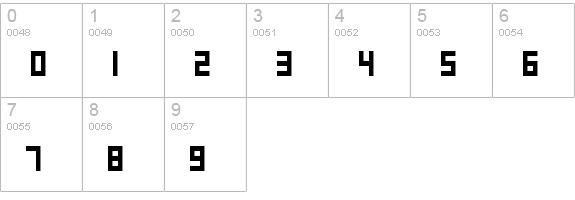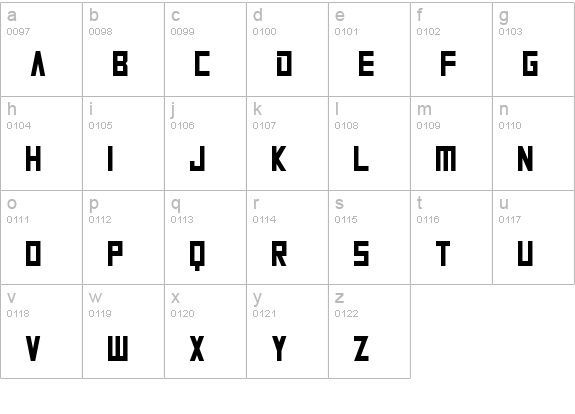
Alien Planet is a donationware font in the Modern > Sci-Fi category, designed by Darrell Flood. It has been downloaded 146 times and is available for Windows, Mac and Linux.
Alien Planet font is a captivating display typeface that transports your designs to another dimension with its futuristic and otherworldly aesthetics. This unique font features intricate alien-inspired letterforms that are both intriguing and visually striking. Whether you are working on a science fiction project, a futuristic poster, or a space-themed design, Alien Planet font is sure to add a touch of extraterrestrial flair.